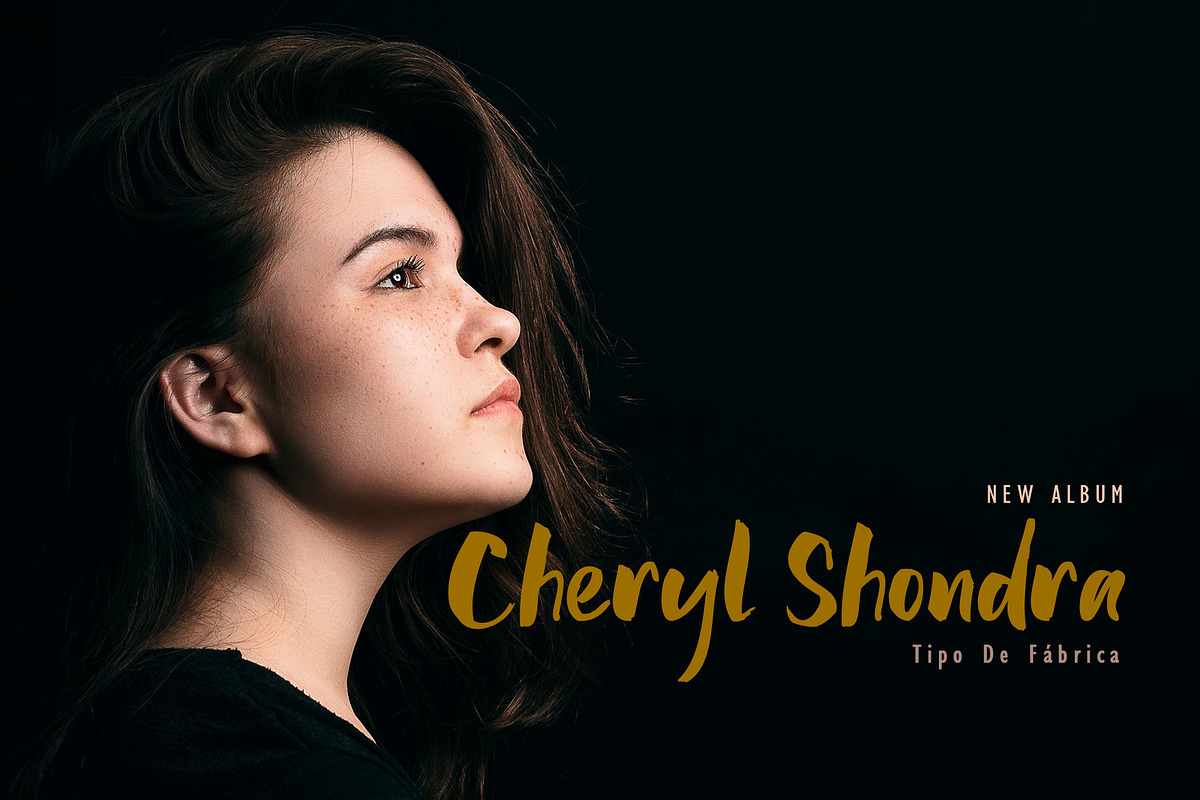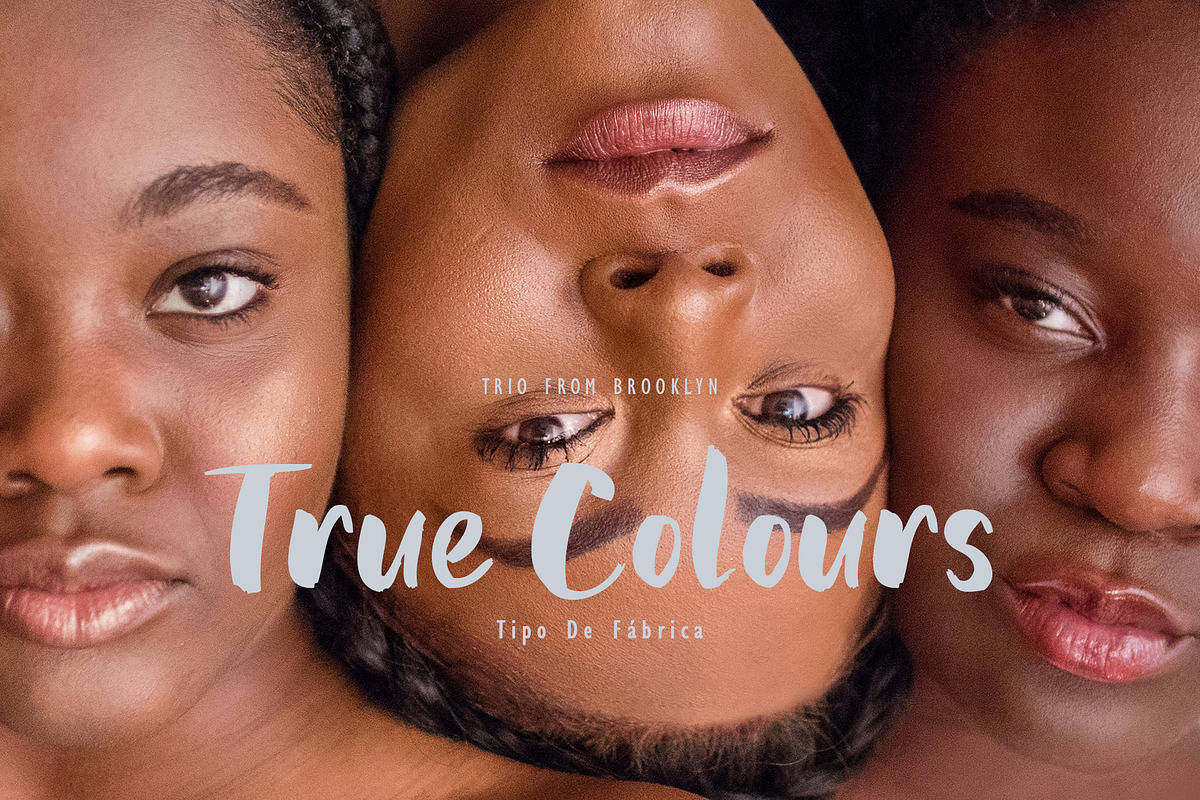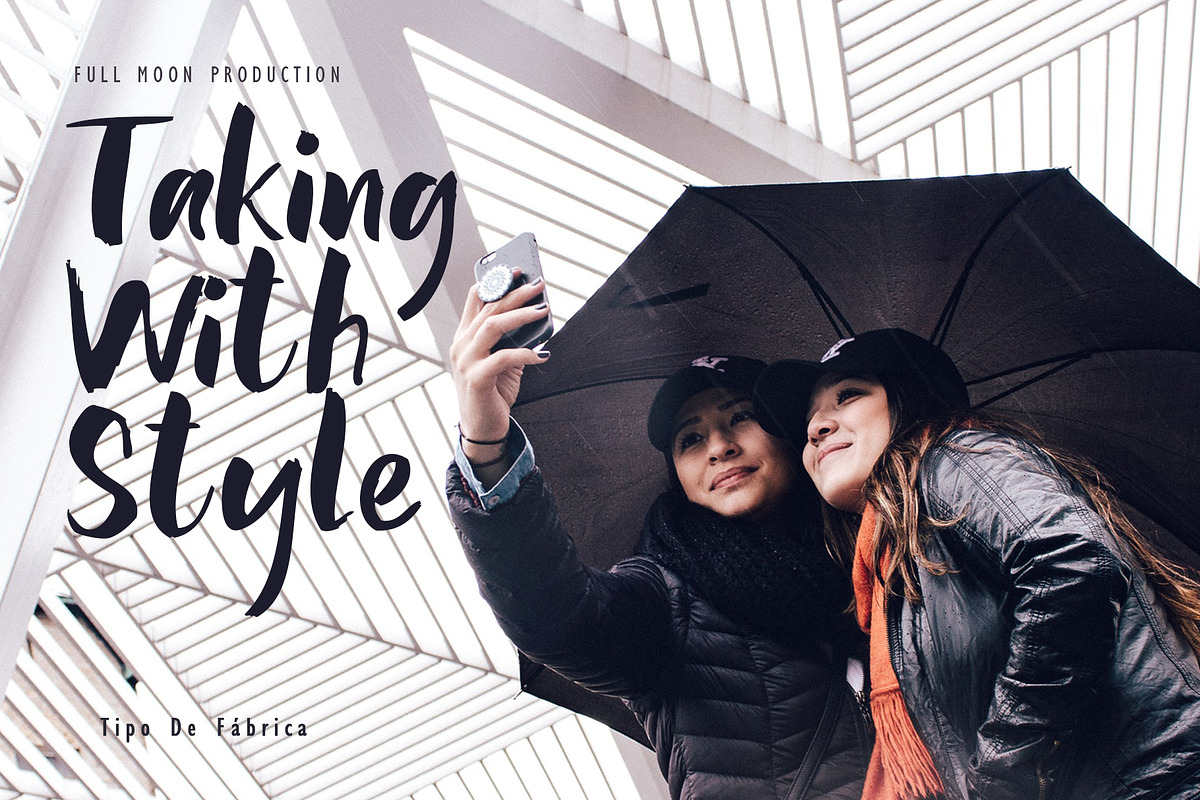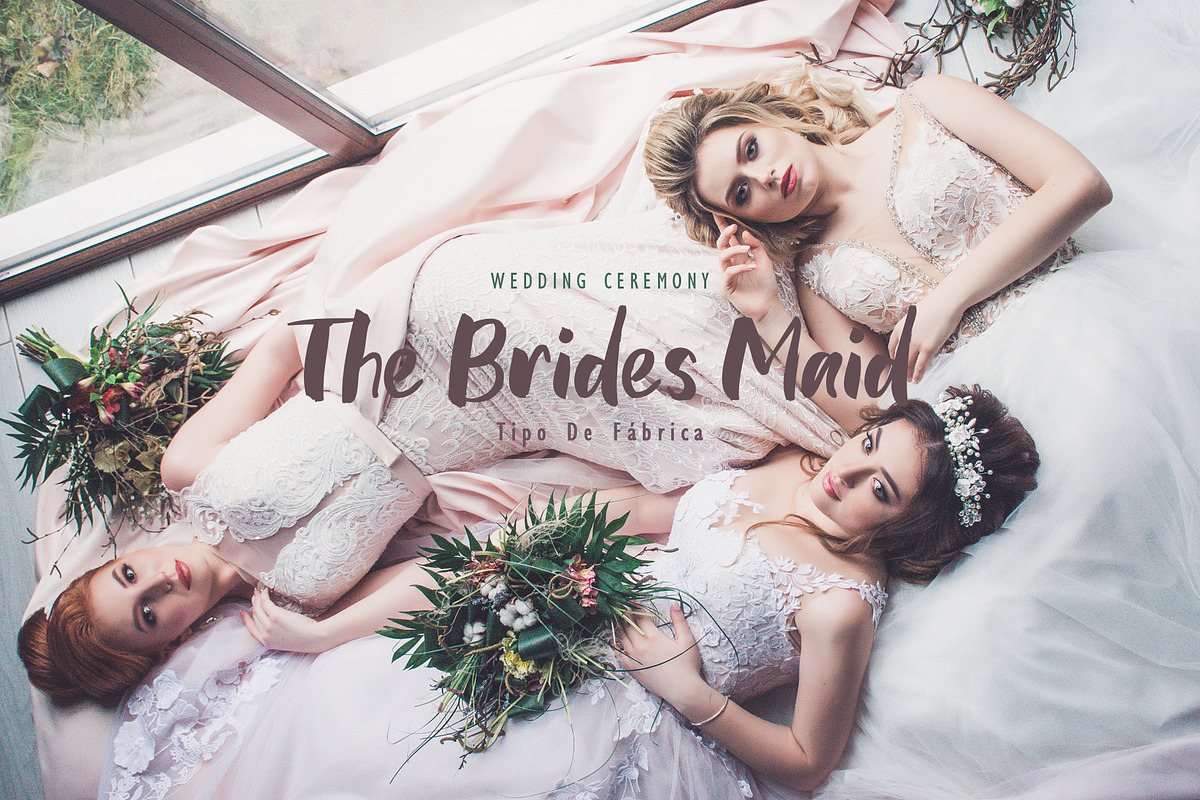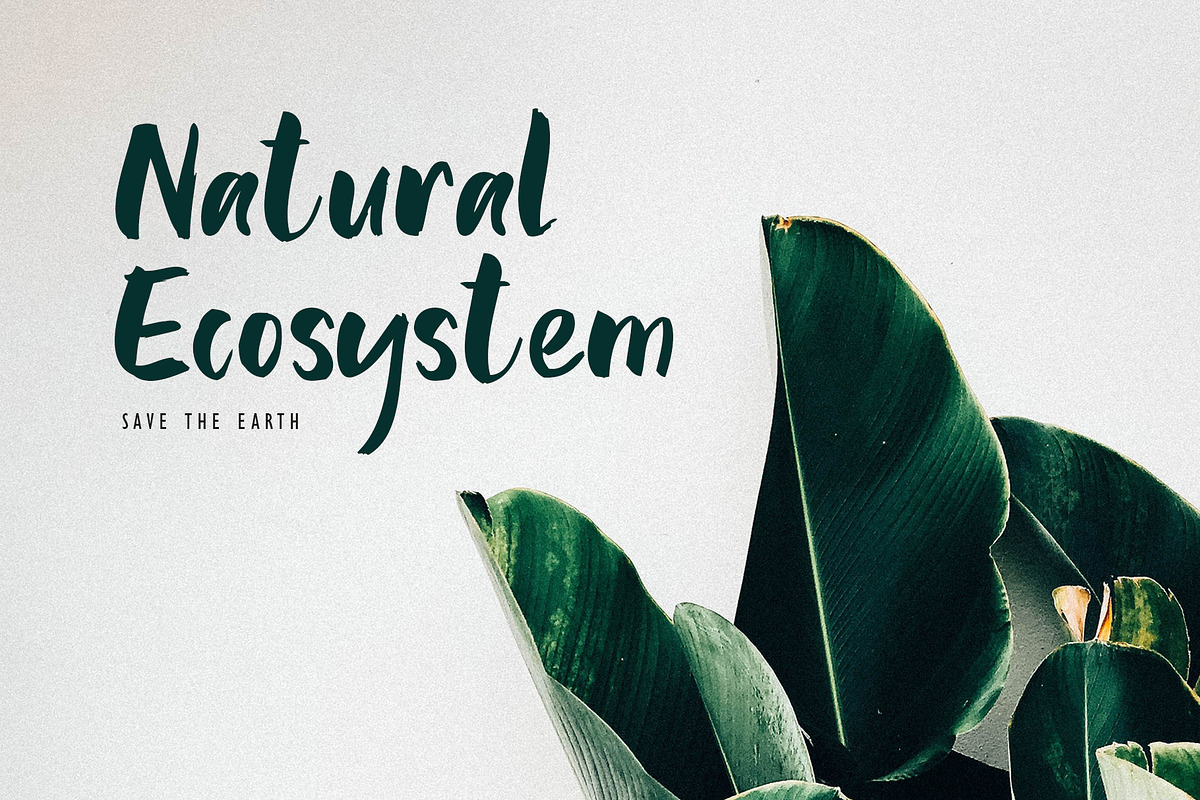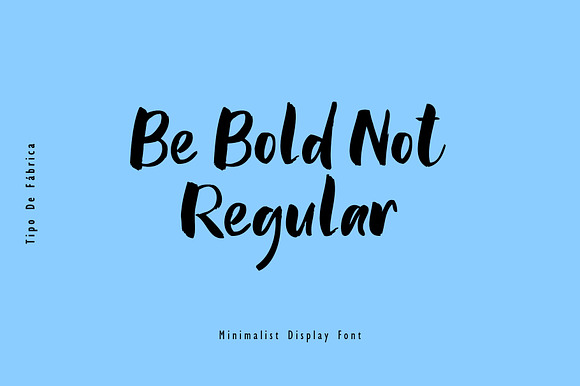
Be Bold Not Regular Font
Be Bold Not Regular Font is a Minimalist Display Fashion Stylist font. awesome for fashion industry, instagram font, photography, wedding industry and many more. Created to make your business brand stand out, modern, minimalist and stylist look.
Be Bold Not Regular Font also includes full set of uppercase and lowercase letters, multilingual symbols, numerals, punctuation.What you will get?
Be Bold Not Regular Font by Giant Design fits naturally into Branding, posters, packaging, typography.